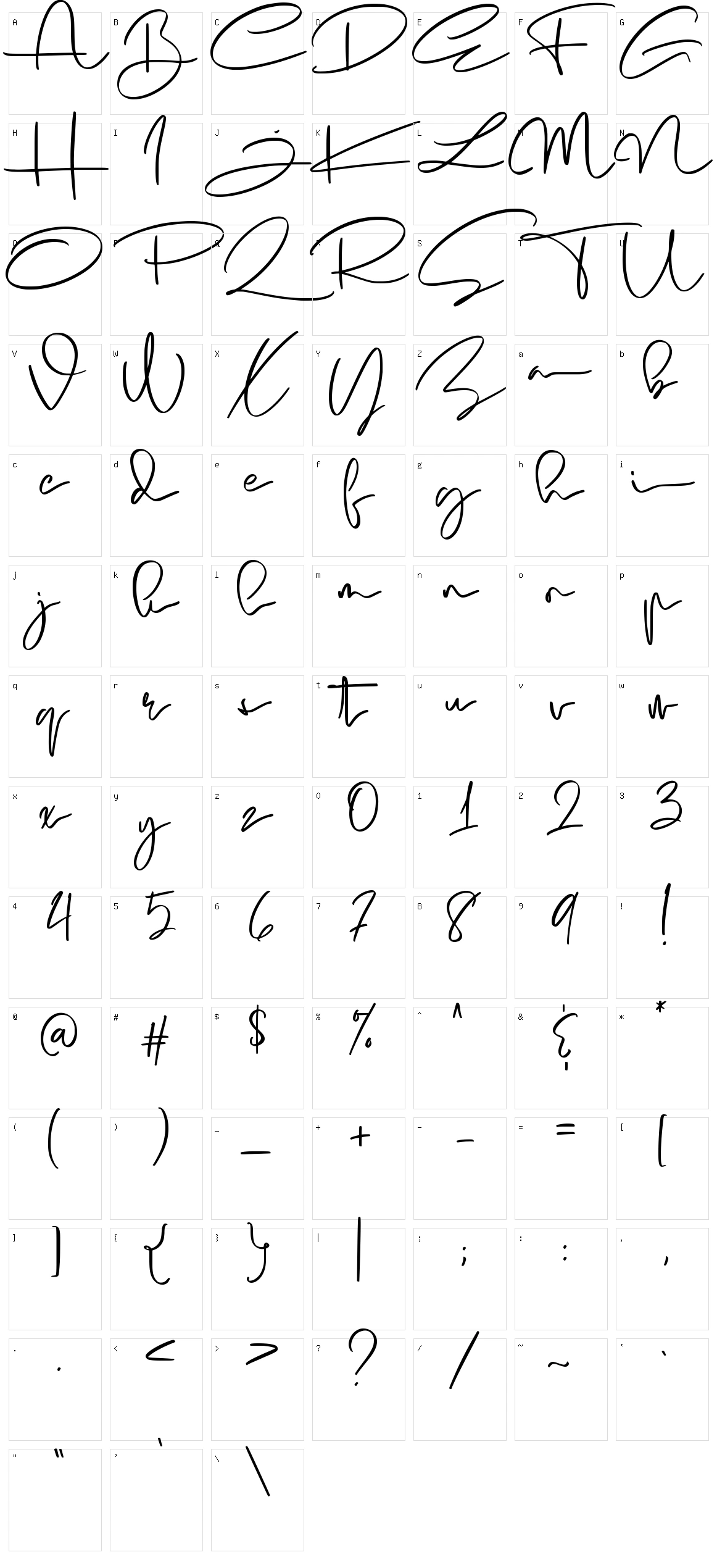
SADIO
- the extended signature -
This font is created specifically for logotypes. Yes, this font is only suitable for making logos or headline text.
This font is not suitable for use in subtitles or main content. It is great for branding, business card, signature, and more.